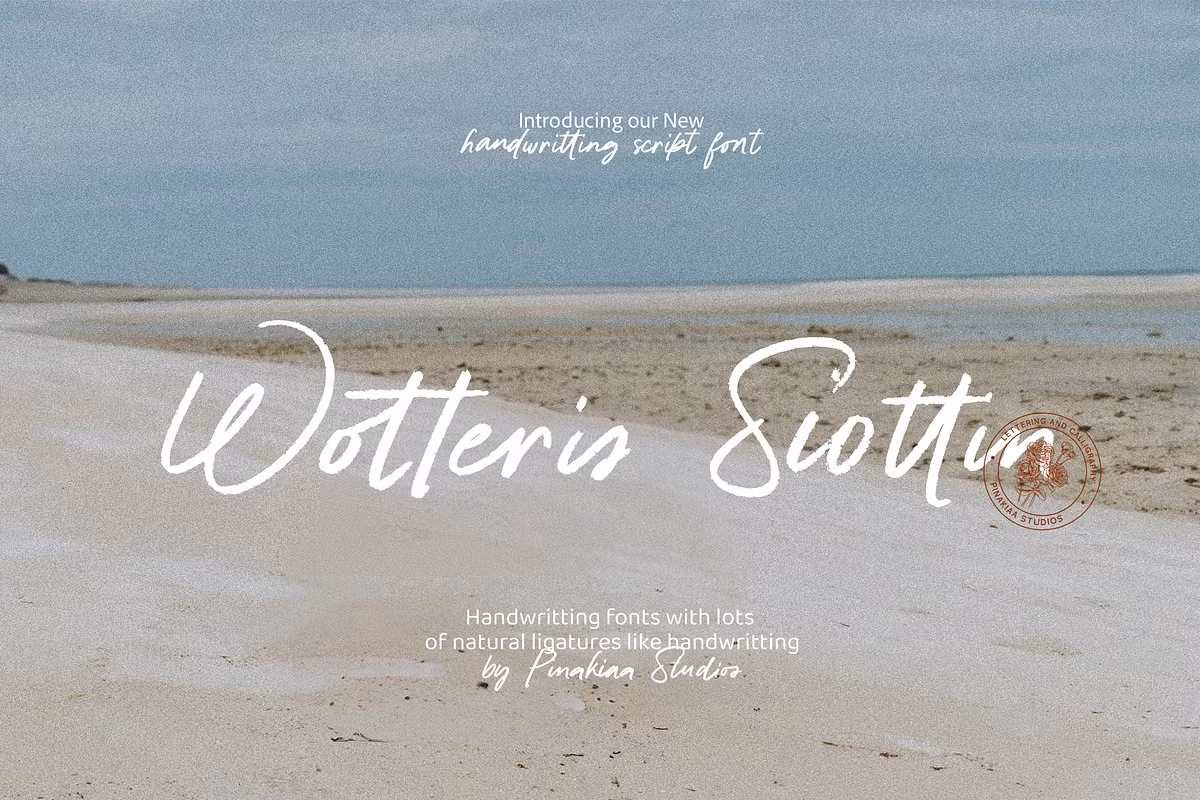
Wotteris Siottin – Handwriting Font Free Download is a stylish and elegant handwritten typeface that combines fluid strokes with a unique, artistic flair. Perfect for projects that need a personal touch, this font is ideal for invitations, logos, social media graphics, quotes, and more.
With its smooth, natural flow, Wotteris Siottin brings warmth and authenticity to any design. It’s perfect for creative projects that require a relaxed, modern calligraphy feel, giving a crafted, bespoke look to everything from wedding stationery to branding.
The font includes uppercase and lowercase letters, numerals, punctuation, and multilingual support. It is compatible with most design software, making it easy to use across both print and digital platforms.